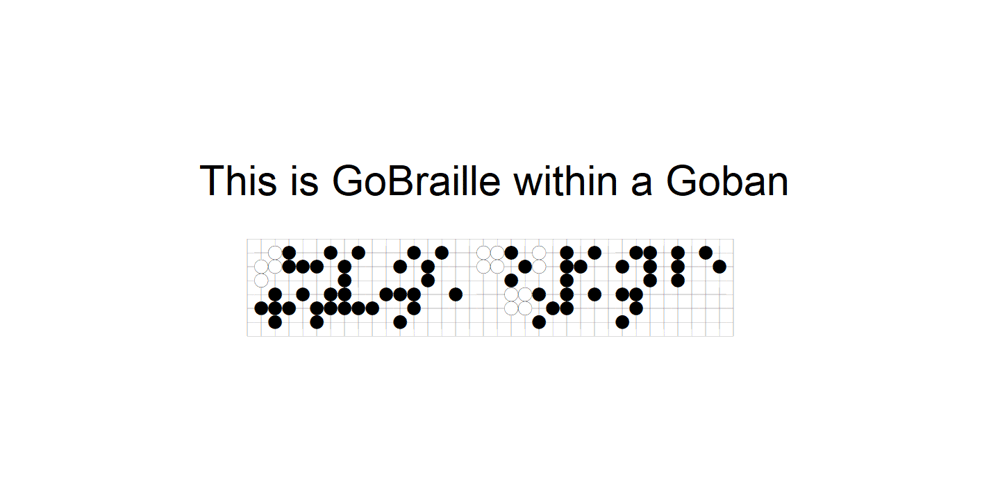
Go Braille Font Family was designed by Michel Kern and published by Echopraxium. Go Braille contains 1 styles and family package options. A Braille font designed with the look of the Go Game. Lowercase glyphs use black stones while uppercase use white stones. To make the text more like within a Goban, Corner and border glyphs are provided. Also the font allows a “new kind of ASCII Art” by providing the missing glyphs (black stones) which enable this usage (see “drawille” project on Github).